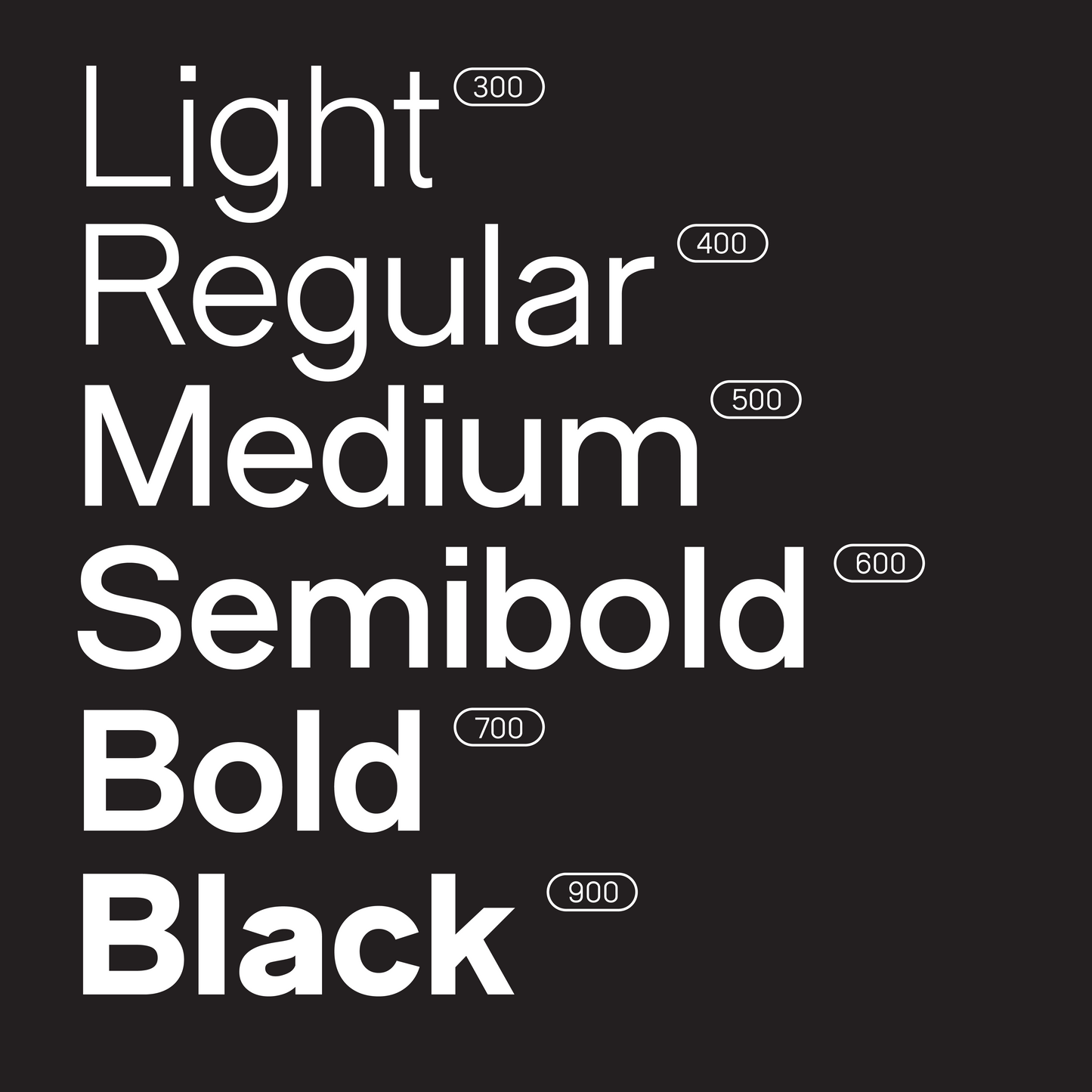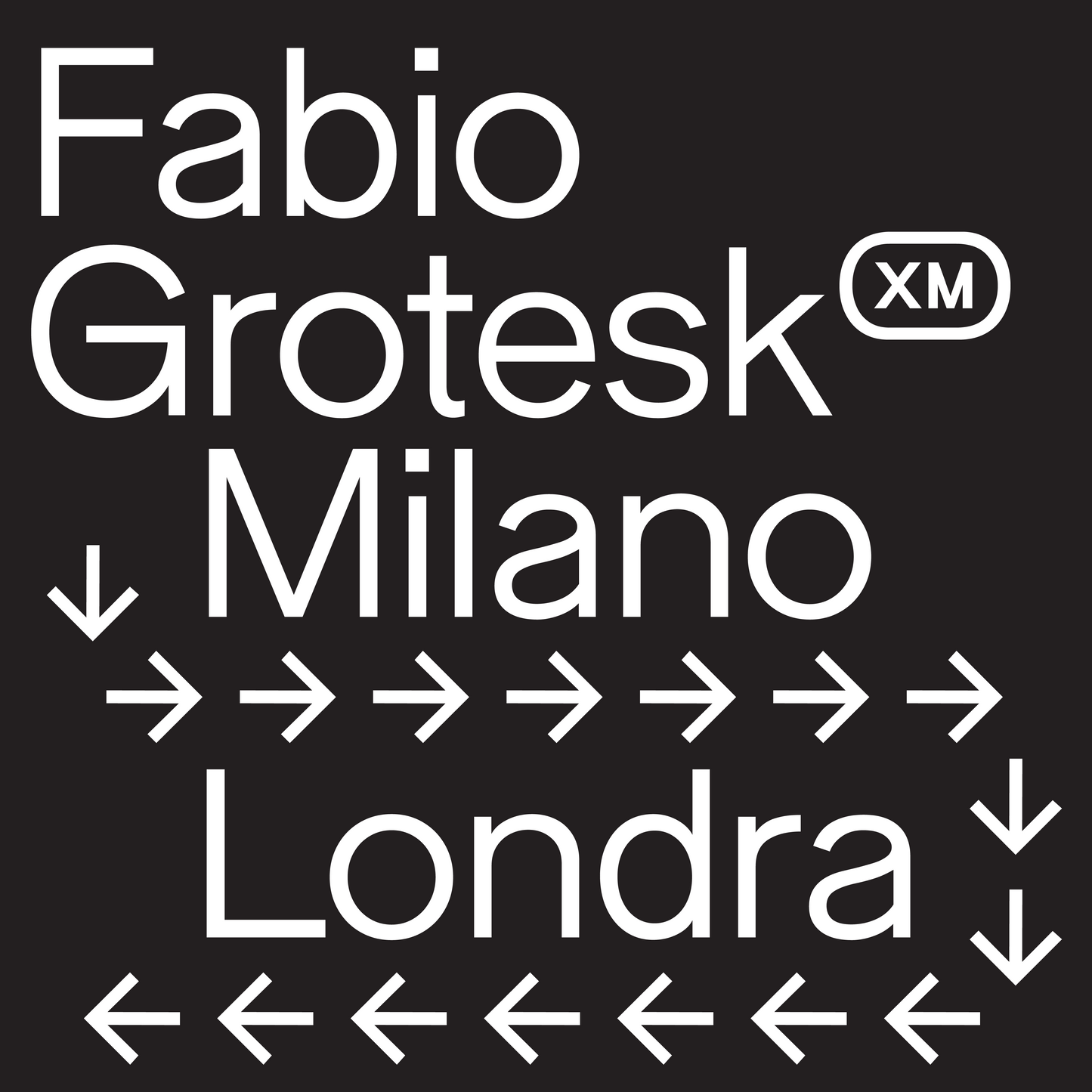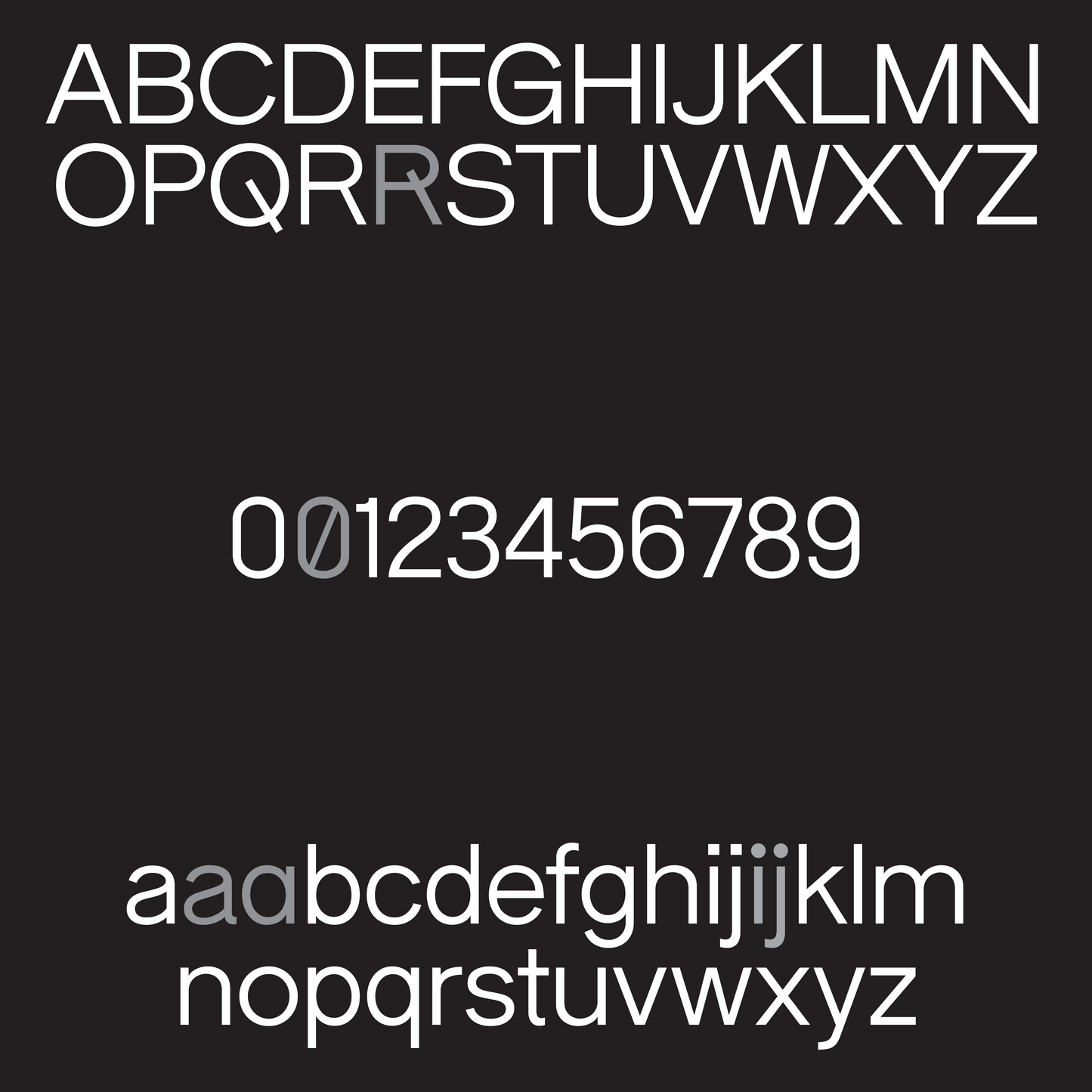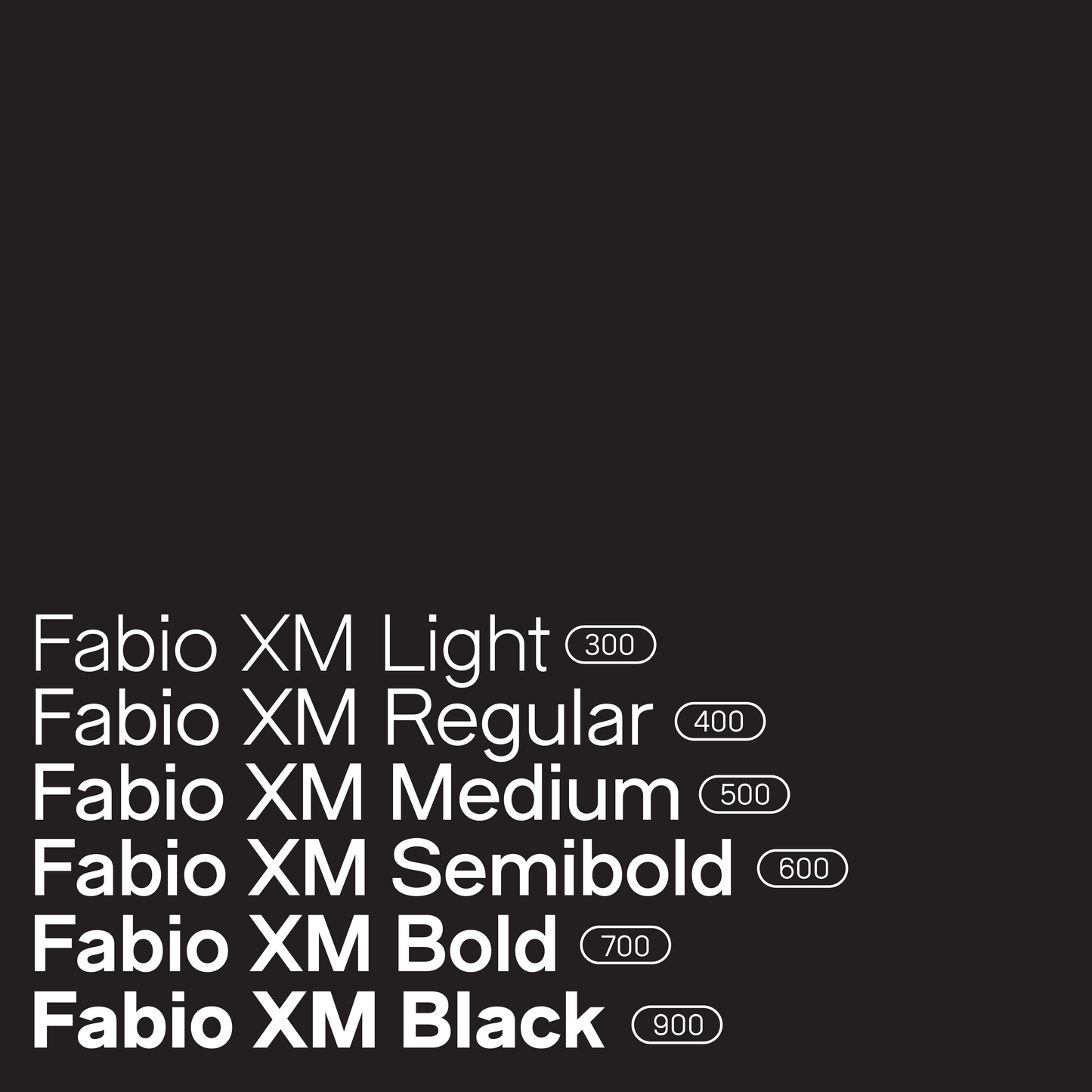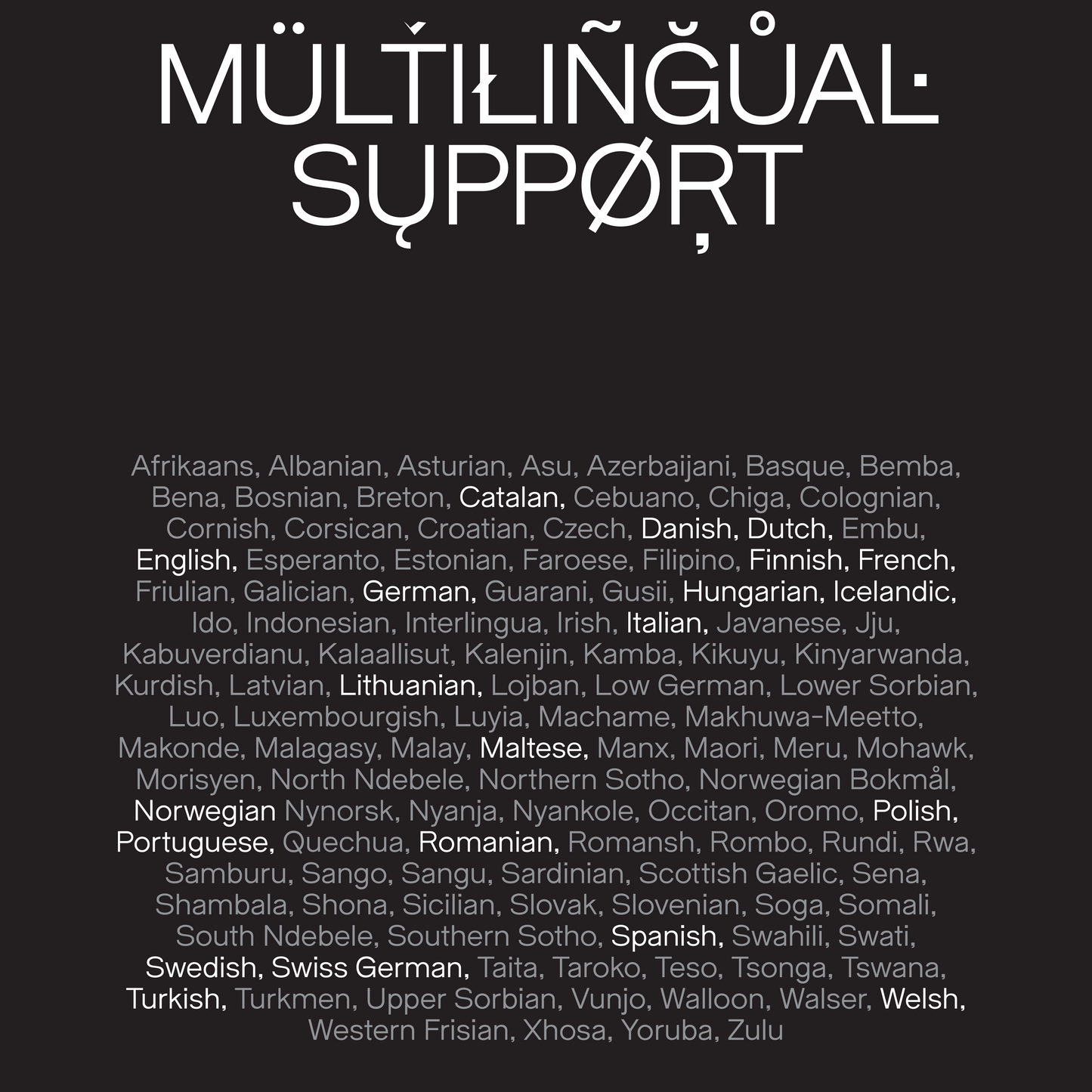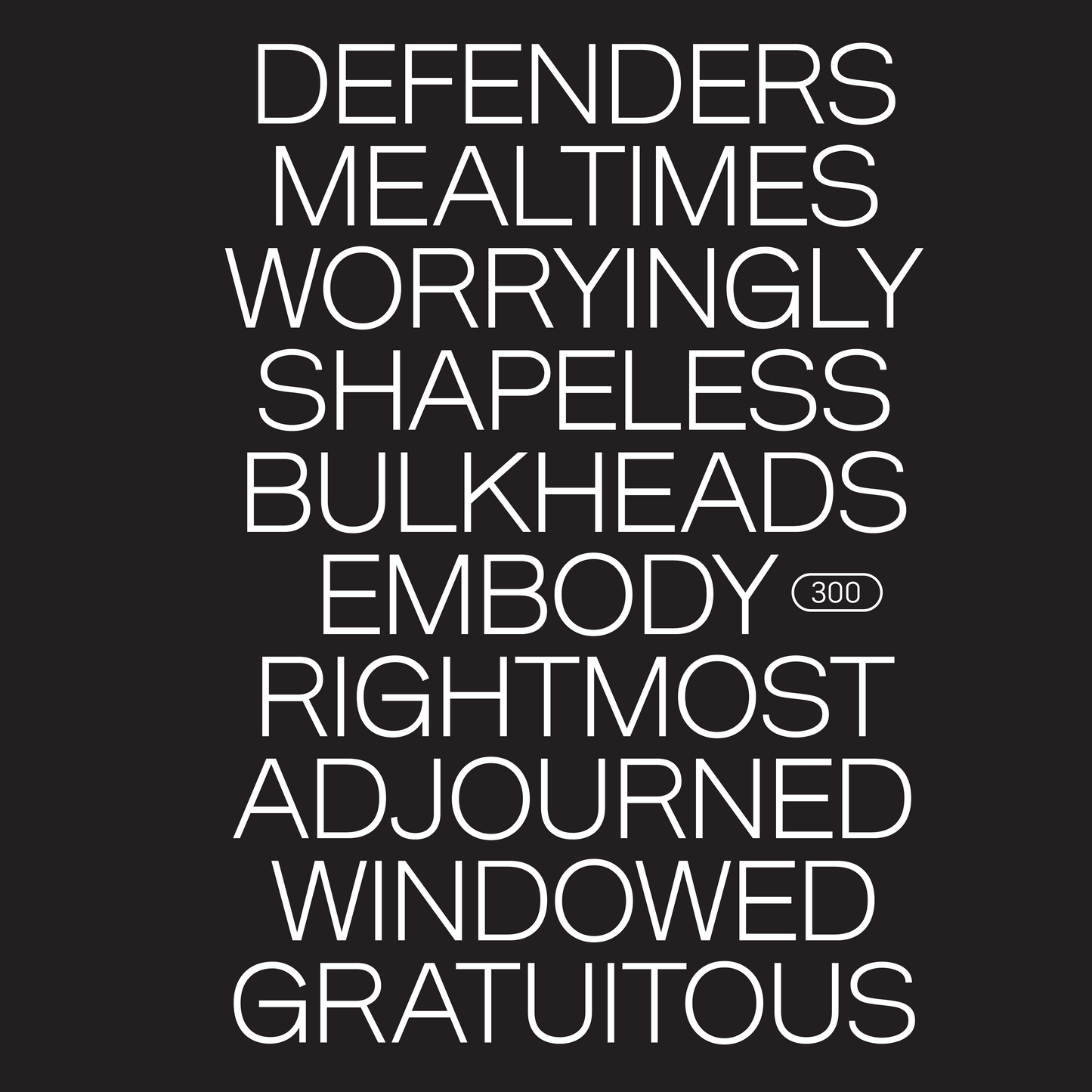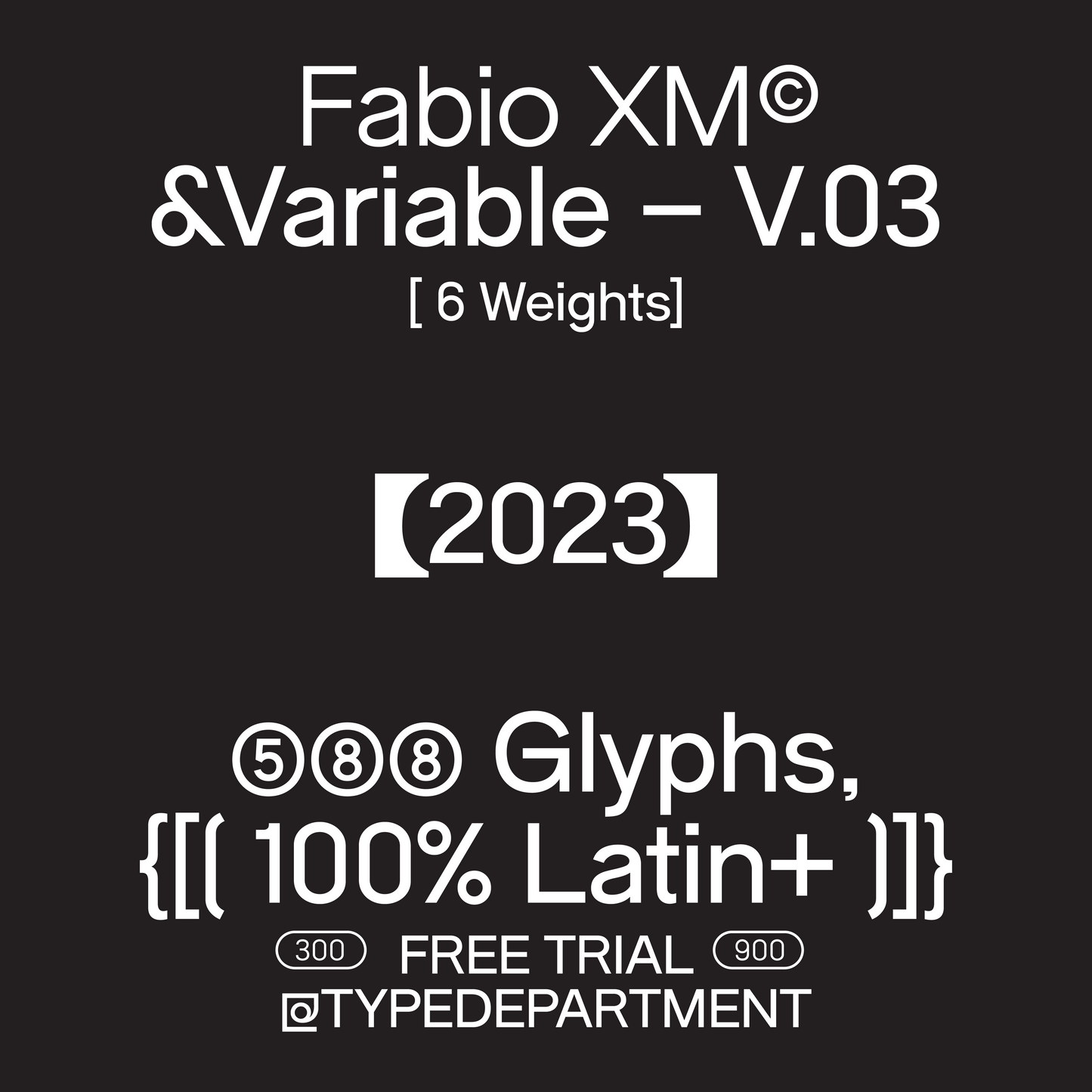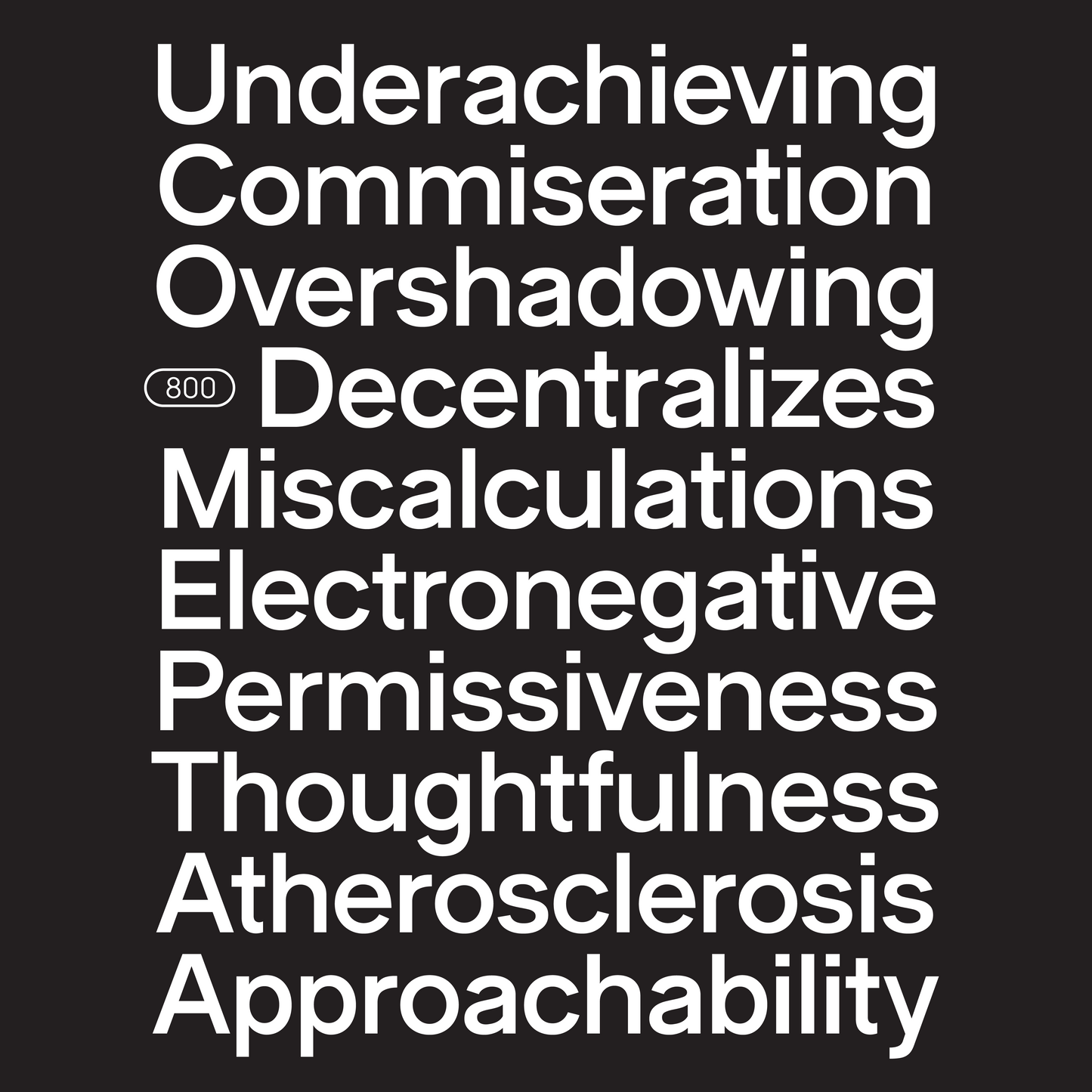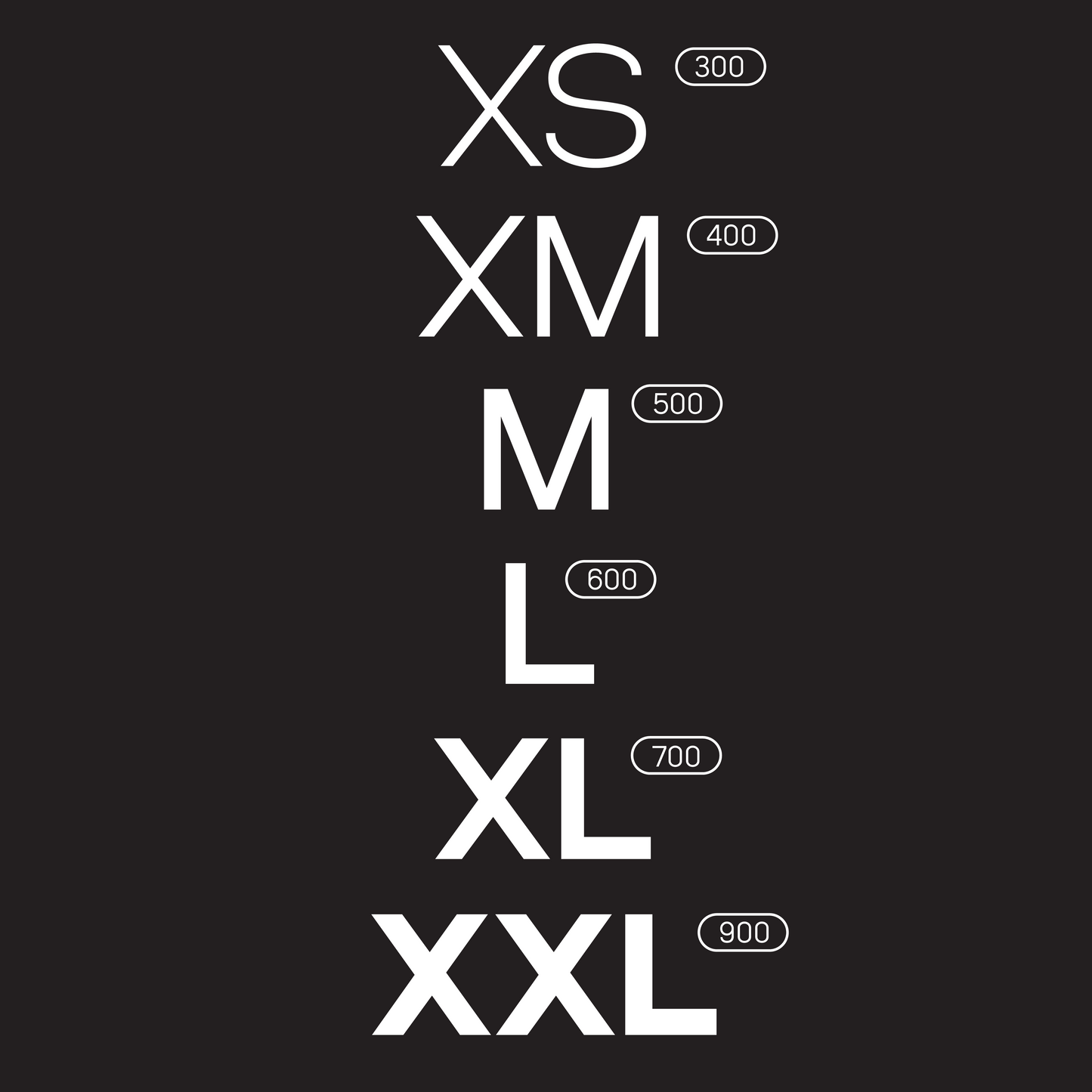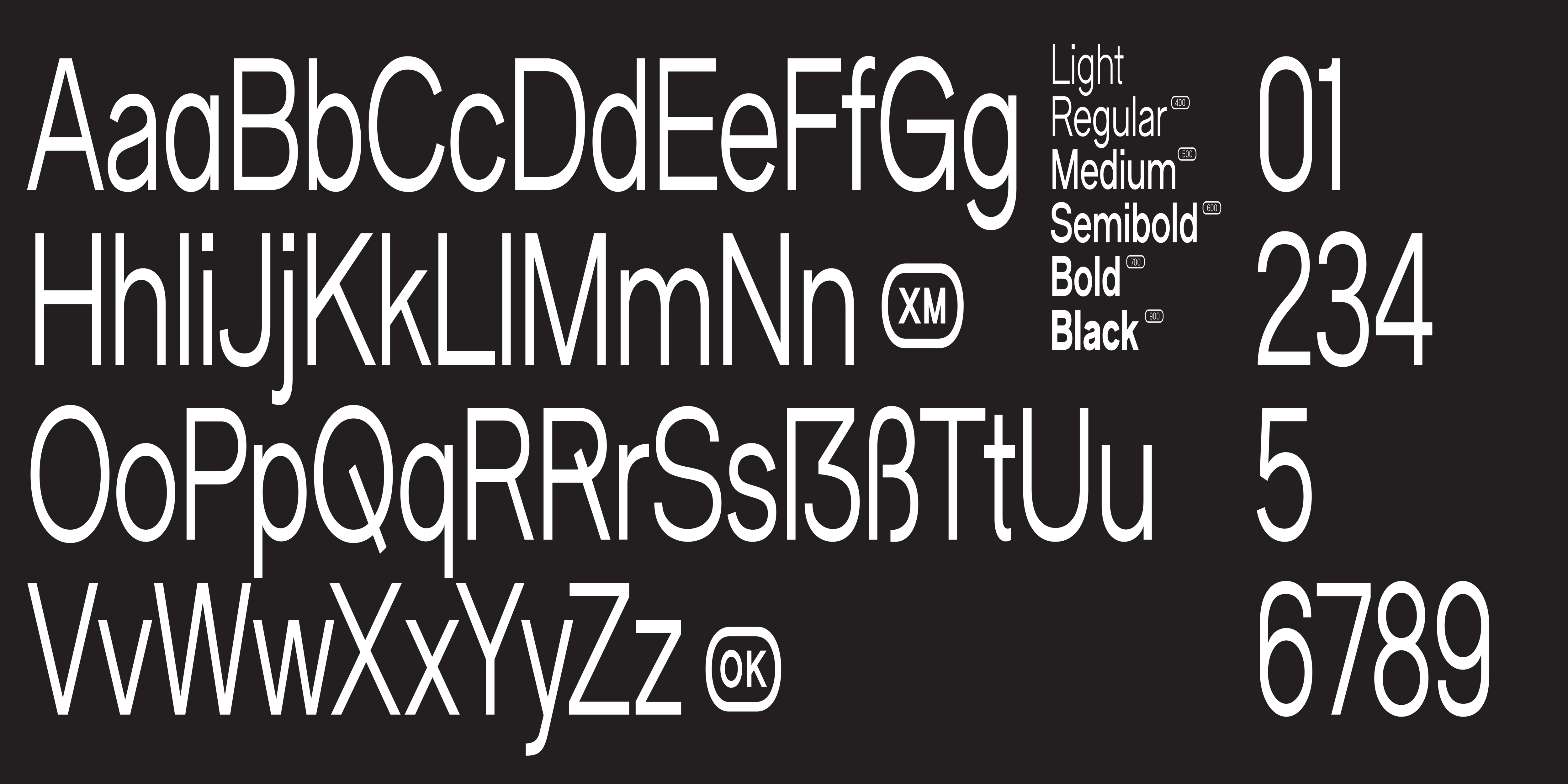
Fabio XM
Giulia Boggio
The best way to sum up Fabio XM is to say it’s a quirky, introverted typeface. With unusual variations and glyphs, it’s understated and intriguing, with a capacity for surprise peeking through its quiet, lowkey exterior.
Fabio XM’s charming personality is an ode to its designer's partner. “After sketching complicated shapes to impress him,” Fabio’s creator reflects, “I realised that what I love most about him is that he’s the quirkiest creature I’ve met, yet at the same time reserved and unpretentious.” With a range of weights and stylistic alternates, Fabio XM offers a ton of great stuff to play around with.
- 300+ glyphs
- 70-75% Latin Plus languages supported
- Stylistic Alternates
- Standard ligatures, discretionary ligatures
- Fractions, symbols, arrows, punctuations & other symbols
- Multilingual support